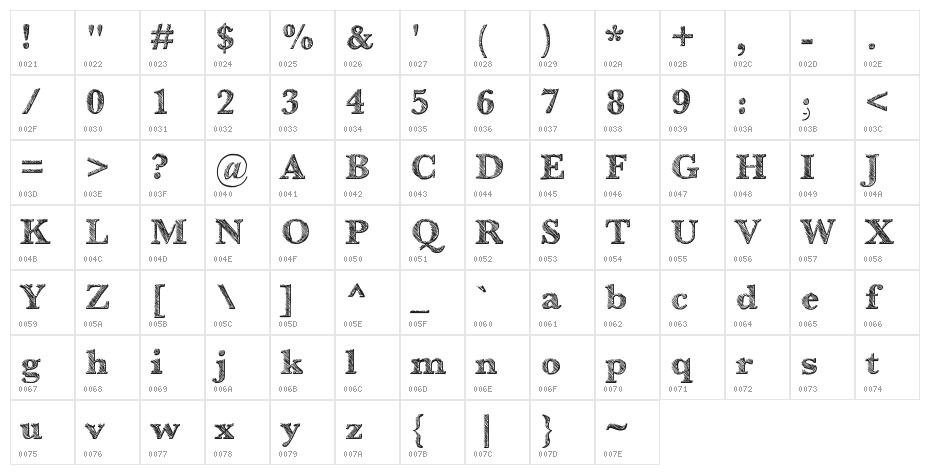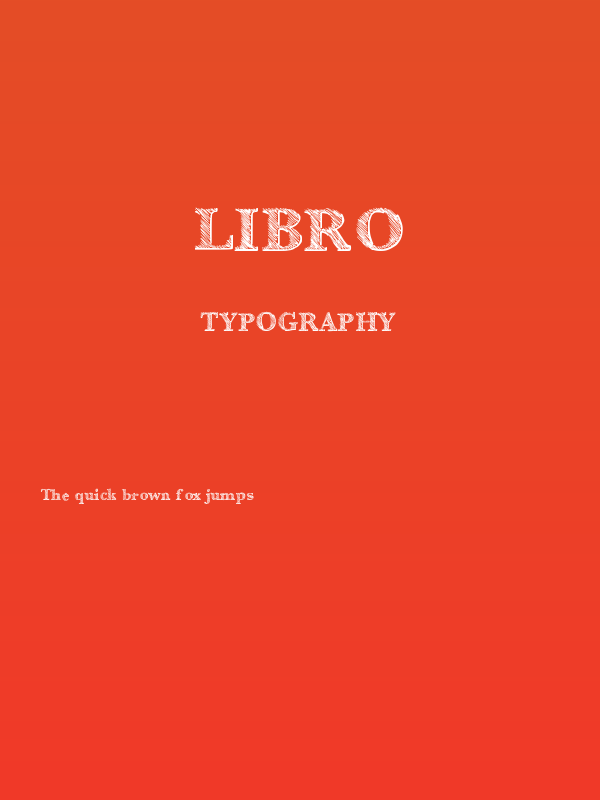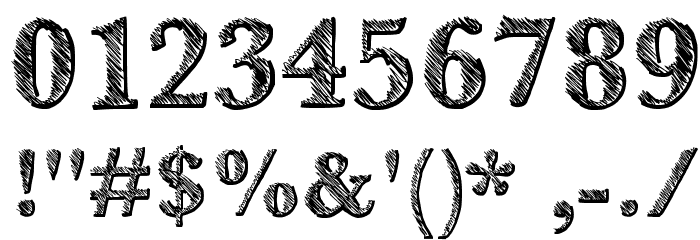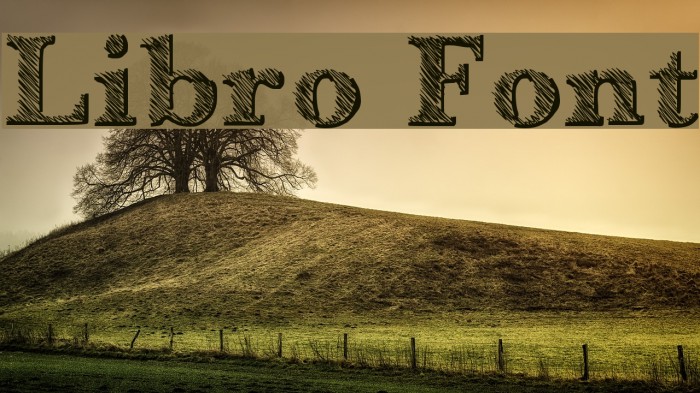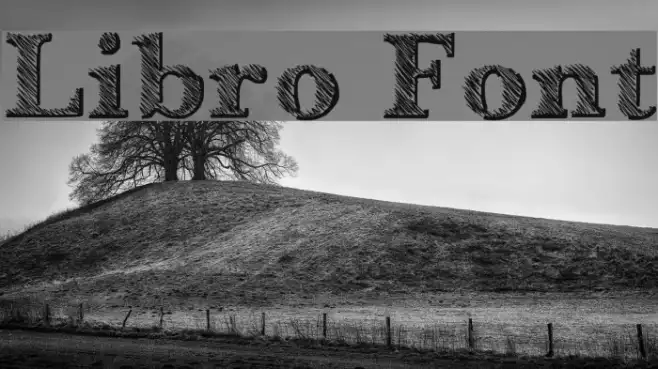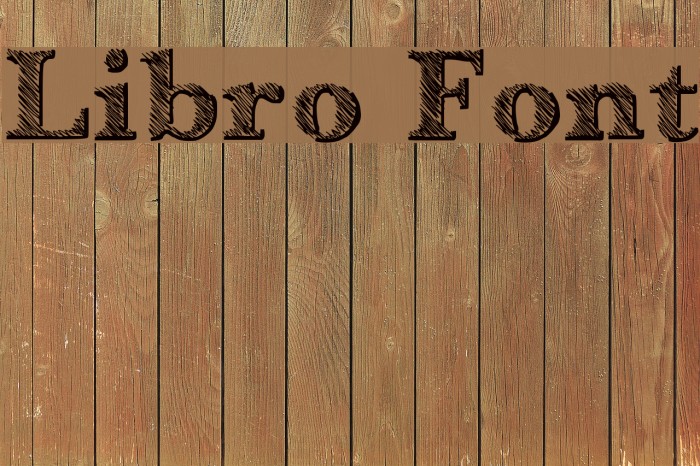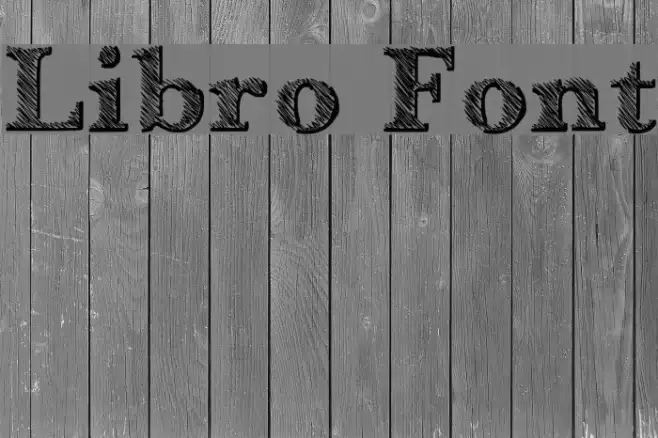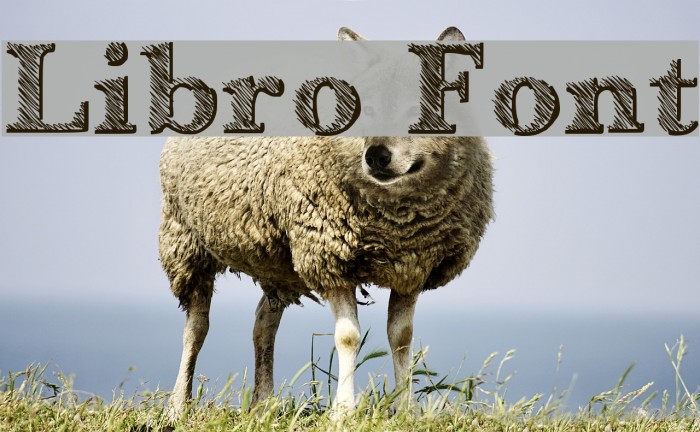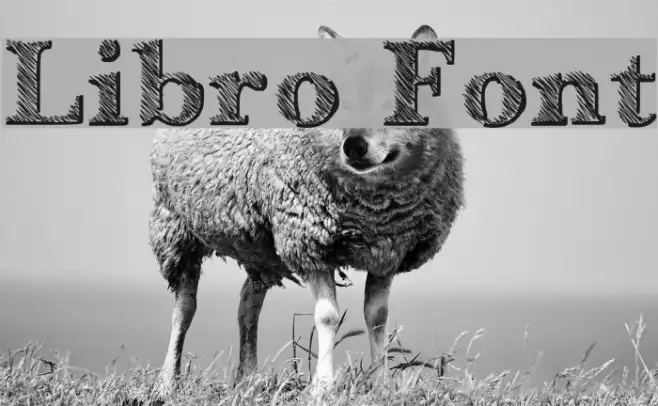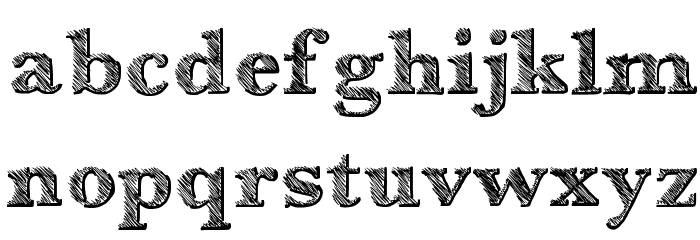
Libro Font
Libro Description
This font features a distinctive hand-drawn, sketch-like appearance, characterized by its textured, cross-hatched lines that give it a unique, artistic flair. The uppercase and lowercase letters maintain a consistent style, with bold, serifed edges that enhance its classic yet creative look. The numerals and special characters follow the same textured pattern, ensuring a cohesive design throughout. This font's playful yet sophisticated style makes it stand out, offering a blend of traditional serif elements with a modern, handcrafted twist.
| Proposed Projects | Ideal for artistic projects, book covers, posters, and branding that require a creative, handcrafted touch. |